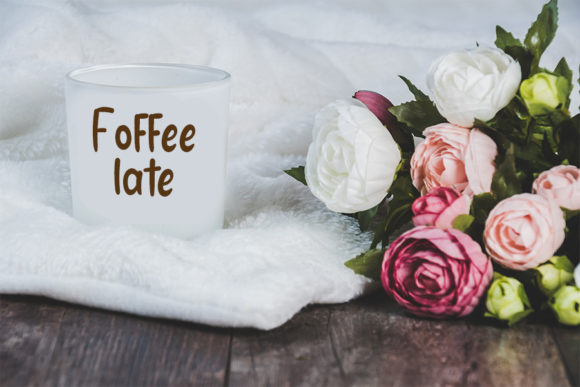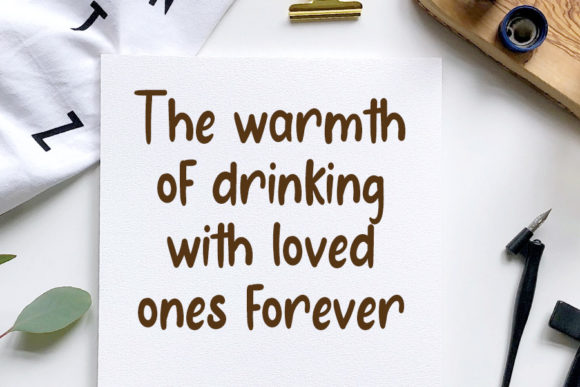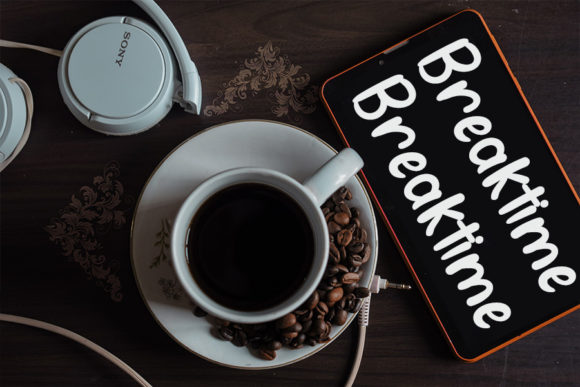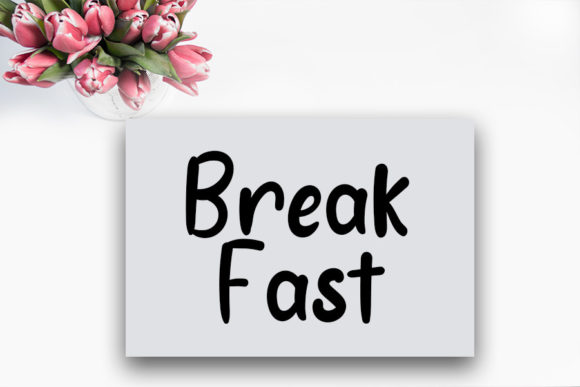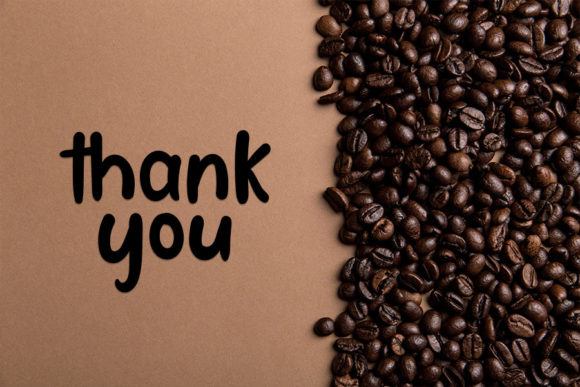
Introducing Chocoffee Font: The Perfect Addition to Your Creative Projects
Are you tired of using the same old fonts in your designs? Look no further than Chocoffee Font, a lovely handwritten font that is sure to add a touch of charm and playfulness to your creative projects. With its unique and whimsical characters, Chocoffee Font is the perfect way to make your designs stand out from the crowd.
What is Chocoffee Font?
Chocoffee Font is a beautiful handwritten font that features charming, playful characters that seem to dance along the baseline. Its unique and quirky design makes it perfect for a wide range of creative projects, from handmade crafts to digital designs. Whether you’re a designer, crafter, or simply someone who loves to add a personal touch to your work, Chocoffee Font is a great addition to your font collection.
Key Features of Chocoffee Font
• Handwritten design: Chocoffee Font has a beautiful, handwritten design that gives it a personal and unique touch.
• Playful characters: The font features playful characters that seem to dance along the baseline, adding a touch of whimsy to your designs.
• Charming and elegant: Despite its playful nature, Chocoffee Font is also charming and elegant, making it perfect for a wide range of creative projects.
• Easy to read: The font is easy to read, even at small sizes, making it perfect for use in a variety of designs.
Uses for Chocoffee Font
Chocoffee Font is a versatile font that can be used in a wide range of creative projects, including:
• Handmade crafts: Chocoffee Font is perfect for use in handmade crafts, such as scrapbooking, card making, and journaling.
• Digital designs: The font can also be used in digital designs, such as blog posts, social media graphics, and digital art.
• Sign making: Chocoffee Font is a great choice for sign making, whether you’re creating a sign for a business or a personal project.
• Wedding and event planning: The font’s elegant and playful design makes it perfect for use in wedding and event planning, such as invitations, menus, and signage.
Tips for Using Chocoffee Font
Here are a few tips for using Chocoffee Font in your designs:
• Use it sparingly: While Chocoffee Font is a beautiful font, it can be overwhelming if used too much. Use it sparingly to add a touch of elegance and playfulness to your designs.
• Pair it with other fonts: Chocoffee Font pairs well with other fonts, such as sans serif fonts and script fonts. Experiment with different pairings to find the one that works best for your design.
• Experiment with colors: Chocoffee Font looks great in a variety of colors, from bold and bright to soft and pastel. Experiment with different colors to find the one that works best for your design.
Font Name Chocoffee Font
Author NYA Letter
Chocoffee Font is a beautiful and versatile font that is perfect for adding a touch of charm and playfulness to your creative projects. With its unique and whimsical design, it’s sure to make your designs stand out from the crowd. Whether you’re a designer, crafter, or simply someone who loves to add a personal touch to your work, Chocoffee Font is a great addition to your font collection.